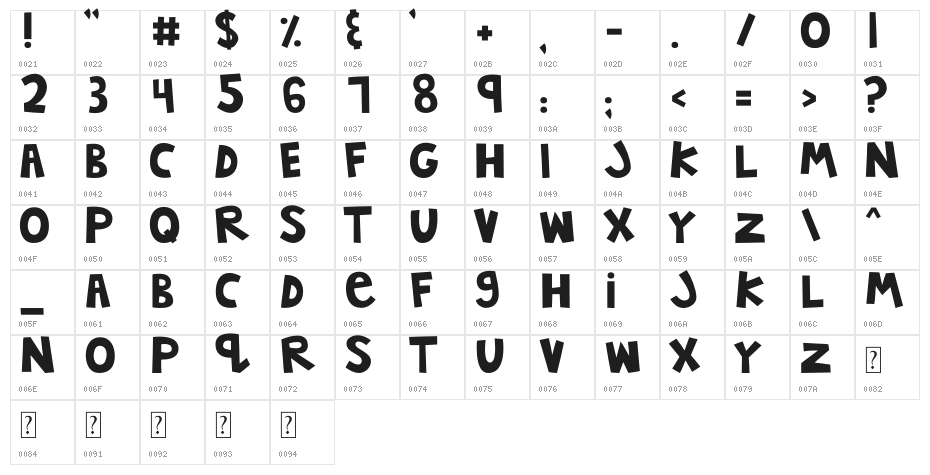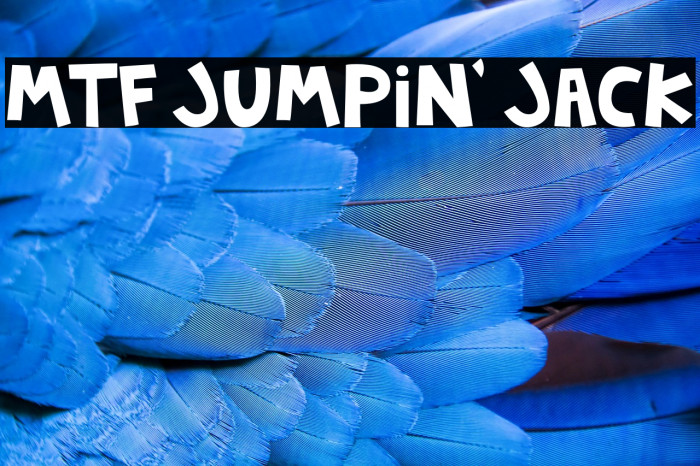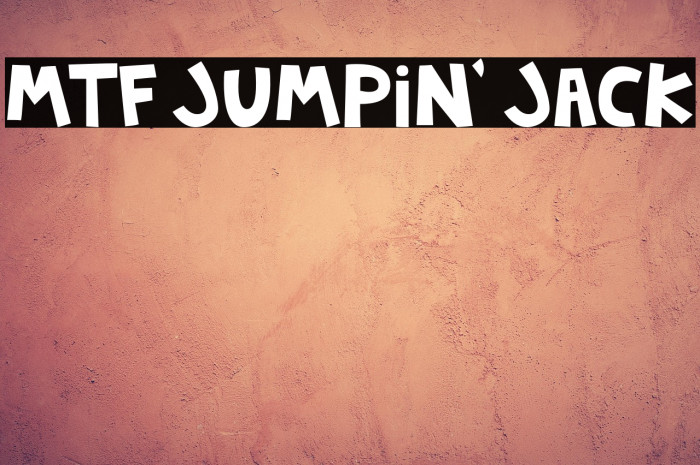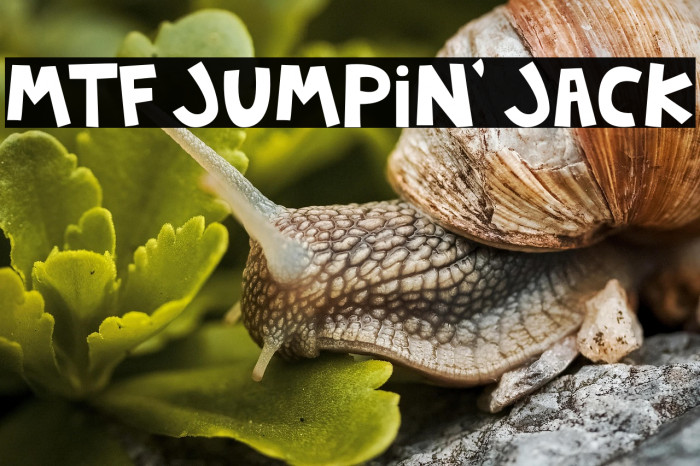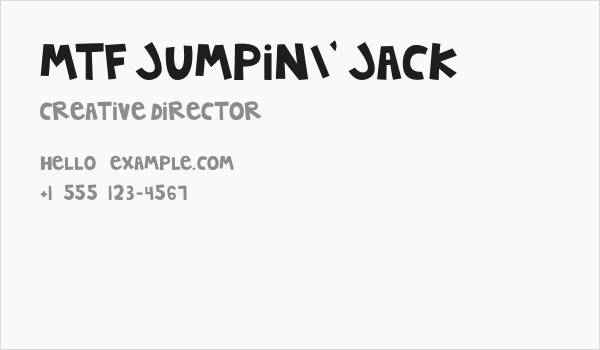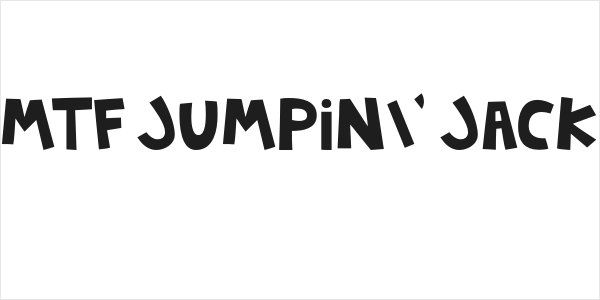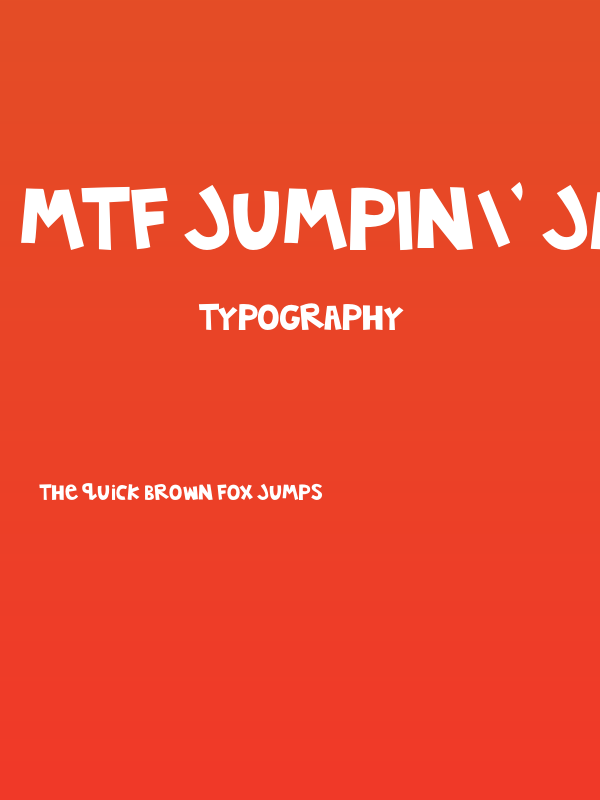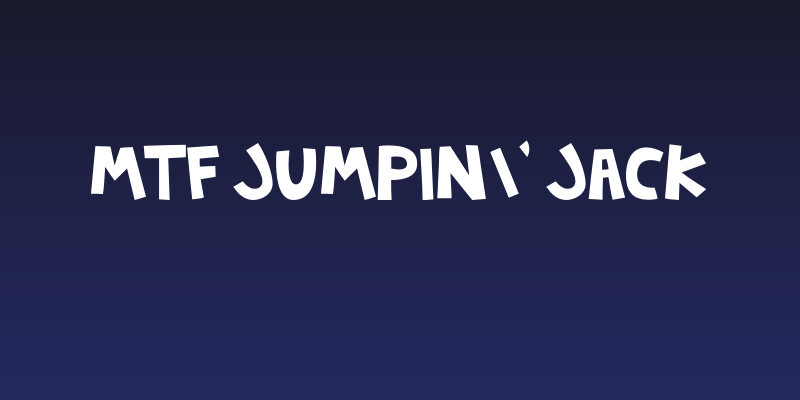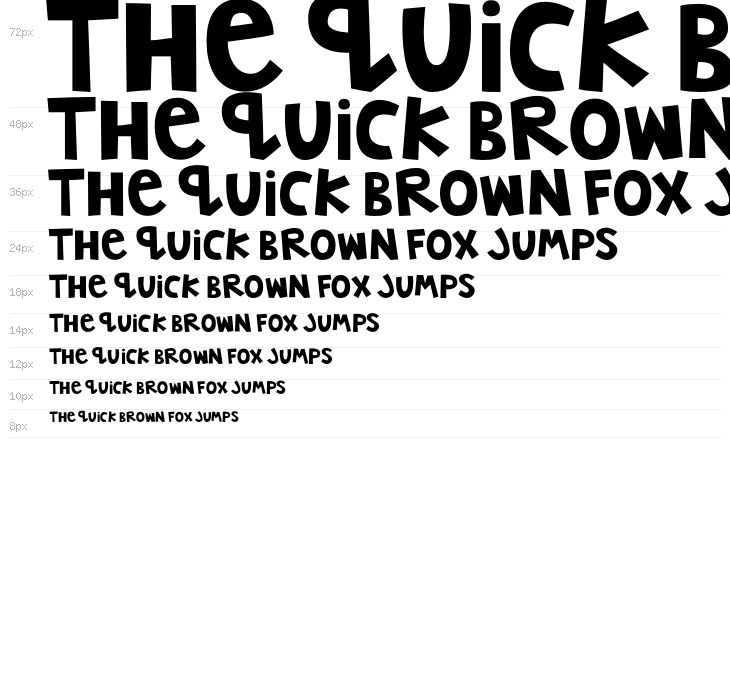
MTF Jumpin' Jack Font
MTF Jumpin' Jack Description
This font exhibits a playful and energetic style, characterized by its bold and irregular letterforms. The uppercase and lowercase letters share a whimsical, hand-drawn aesthetic, with exaggerated curves and angles that give each character a unique personality. The numbers and special characters maintain this lively theme, contributing to the overall dynamic appearance. The font's informal and fun design makes it ideal for projects that require a touch of creativity and spontaneity.
| Overall Style | Playful, Energetic, Hand-drawn |